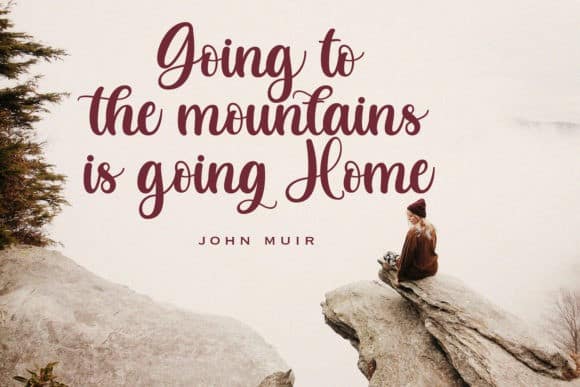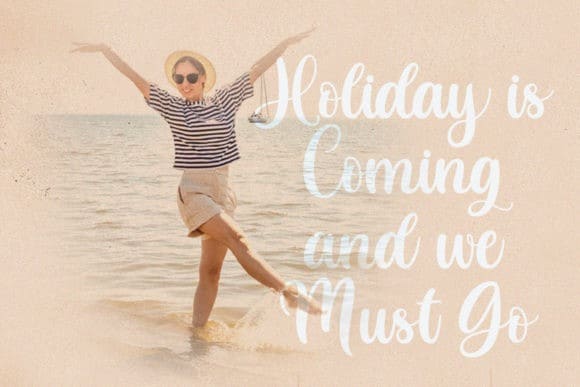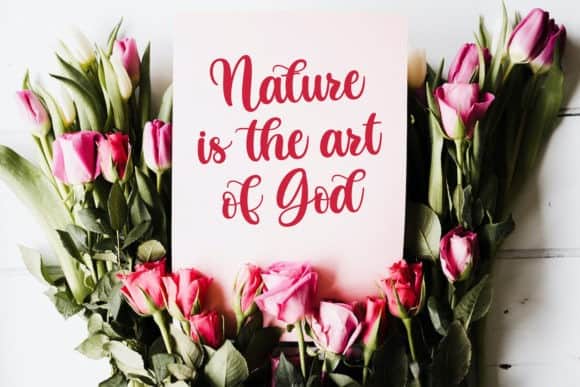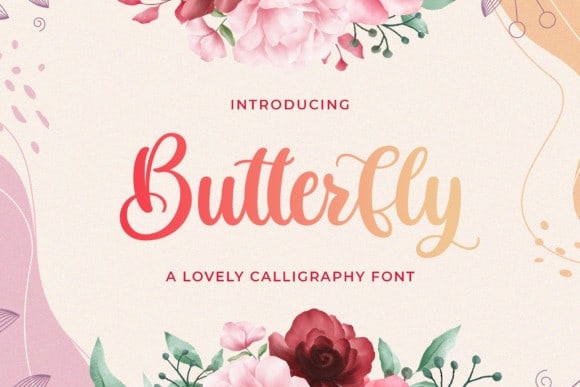
Butterfly Calligraphy Font
Introducing Butterfly Calligraphy Font is a Cute and Lovely typeface, this font come with extra alternate, ligature and swash ending. perfect for your awesome project. Made from font designer named StringLabs. It feels equally charming and elegant. It looks stunning on wedding invitations, thank you cards, quotes, greeting cards, logos, business cards and every other design which needs a handwritten touch. This font is PUA encoded which means you can access all of the glyphs and swashes with ease! It features a varying baseline, smooth lines, gorgeous glyphs and stunning alternates.